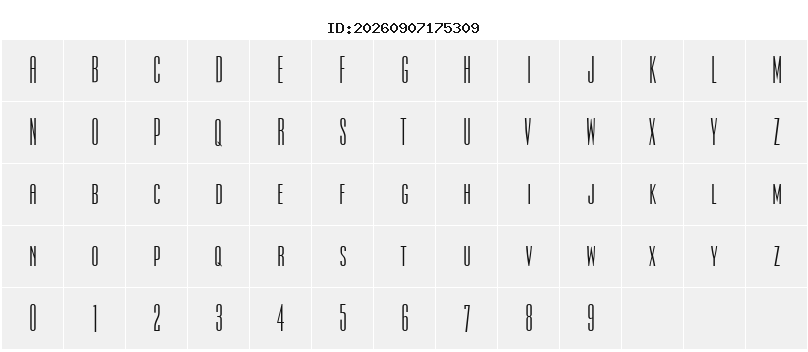
• Font Name: Ultra Condensed Sans One
• Full Font Name: Ultra Condensed Sans One Regular
Ultra Condensed Sans One.ttf is a modern, elegant sans-serif font designed for ultimate readability and visual harmony. Perfect for branding, headlines, web design, and print materials.